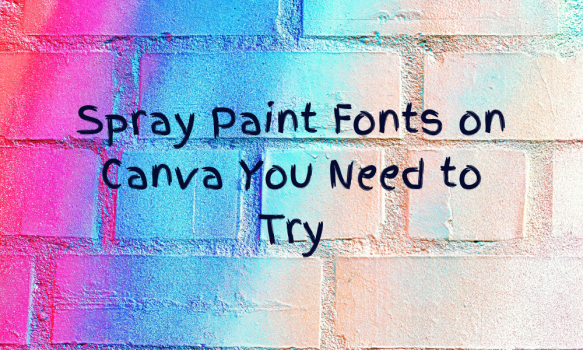
Spray Paint fonts are the perfect way to give your projects an edgy, urban look. Whether you’re creating a poster, a social media graphic, or just want to spice up your content, these fonts on Canva can help you make a bold statement. In this article, we’ve rounded up 15 of the coolest spray paint fonts available on Canva. From wild drips to sharp stencils, each font offers something unique for your designs. These fonts bring a unique flavor and versatility to your designs, making them worthy of exploration in Canva’s vast library.
1. Abys
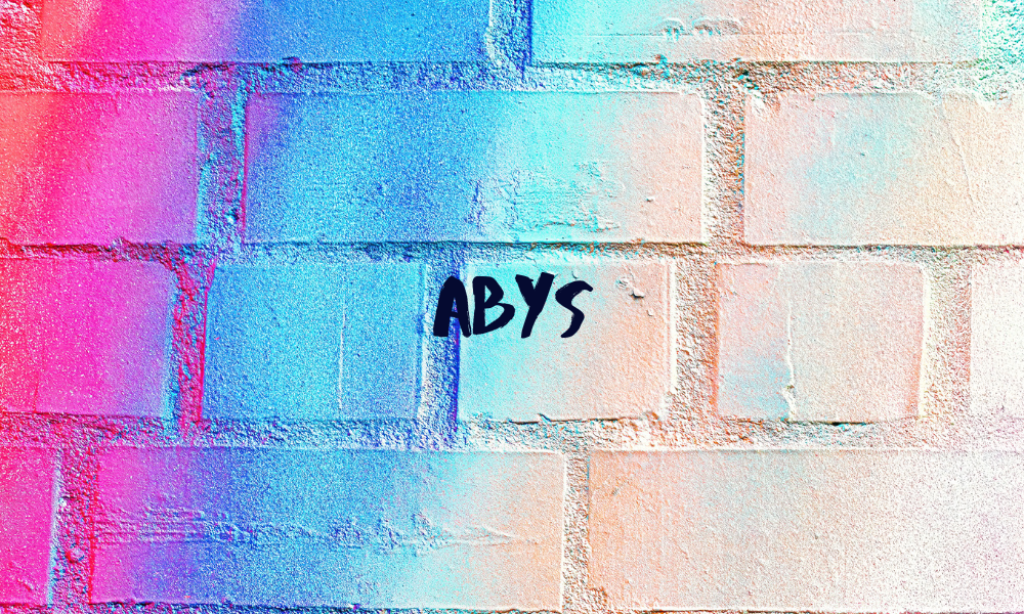
Why it is a must-try Spray Paint font: Abys is known for its raw, hand-painted appearance, which brings an authentic graffiti vibe to any design. Its rugged edges and varying line thickness make it perfect for impactful headlines and urban-style logos.
2. Balmy
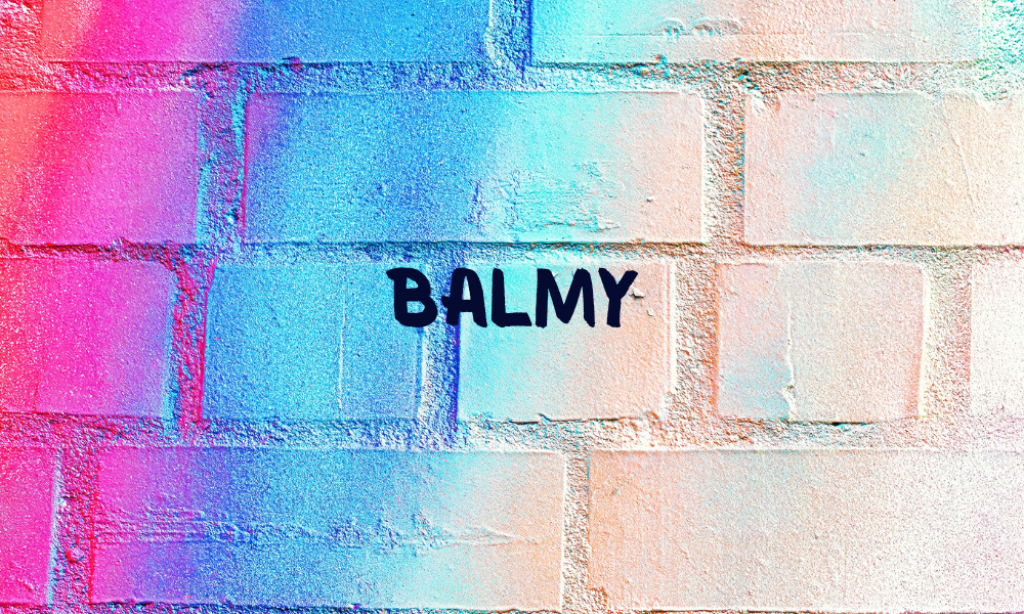
Why it is a must-try Spray Paint font: Balmy offers a soft, brush-like texture that mimics spray paint’s light mist effect. This font is ideal for designs that need a touch of graffiti but with a more subtle and artistic approach.
3. Bristol
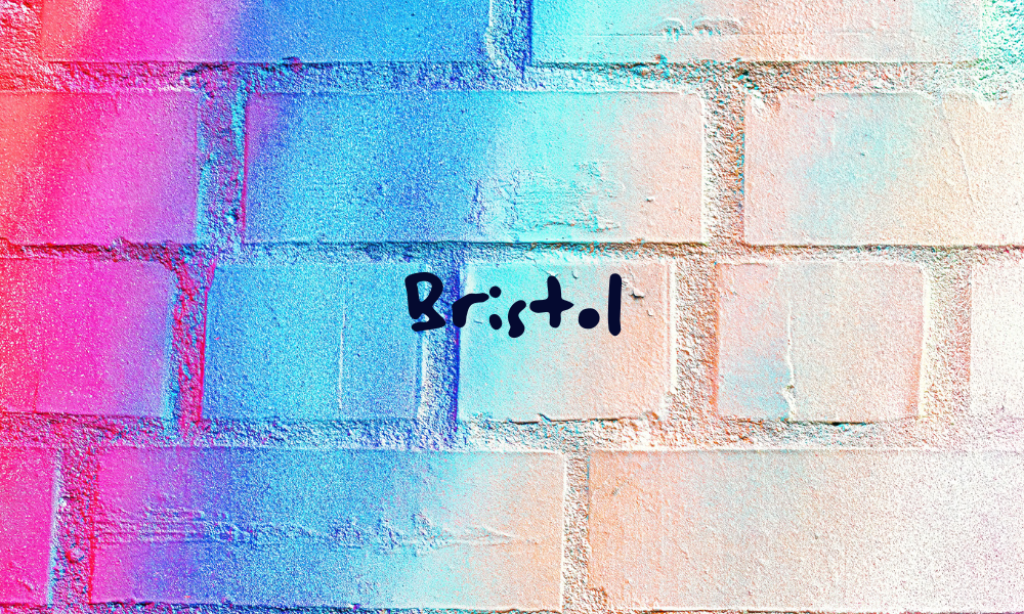
Why it is a must-try Spray Paint font: Bristol captures the look of classic stencil art, providing a structured yet street-inspired font style. Its clean lines and uniformity make it versatile for both text-heavy designs and minimalist artworks.
4. Finger Paint
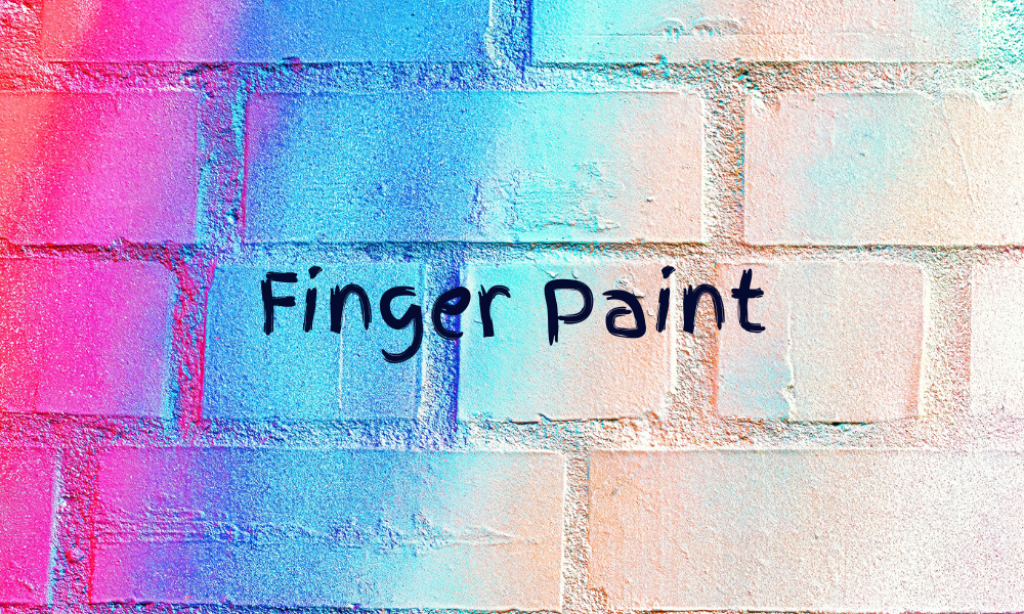
Why it is a must-try Spray Paint font: As the name suggests, Finger Paint has a playful, smeared look that mimics hand-painted letters. It’s perfect for projects that require a personal touch or a childlike whimsy, making it diverse in its usage.
5. Glacier Stencil
Why it is a must-try Spray Paint font: Glacier Stencil combines the precision of stencil art with the edginess of a spray paint finish. Its sharp, clear cuts are suitable for both outdoor adventure themes and modern, chic projects.
6. Hitch Hike
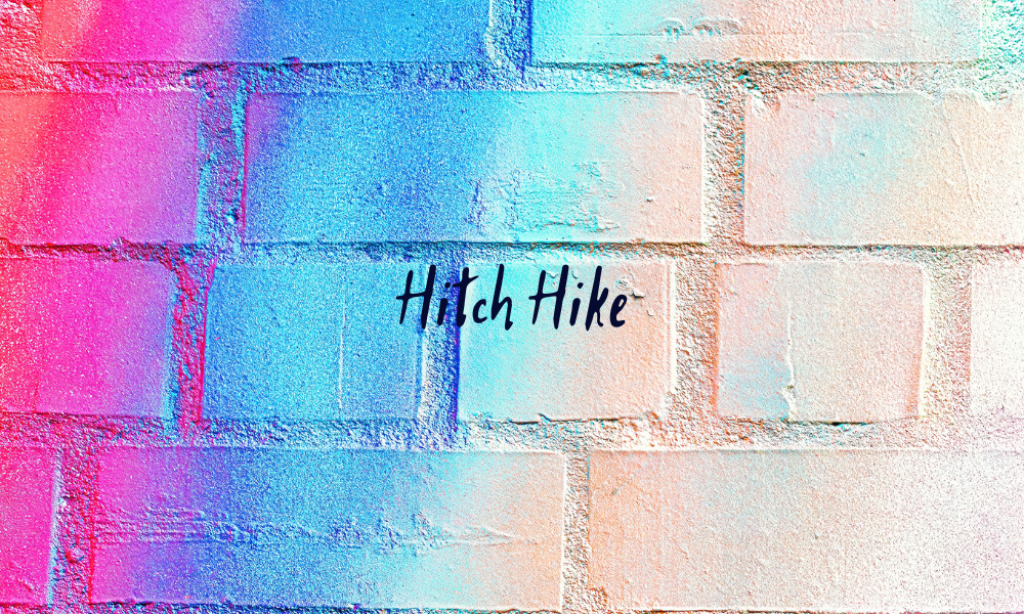
Why it is a must-try Spray Paint font: Hitch Hike is bold and assertive, with a slightly eroded look that adds a sense of adventure and spontaneity to your designs. It works well in travel blogs, adventure gear promotions, or any project that wants to convey a sense of ruggedness.
7. Lacquer
Why it is a must-try Spray Paint font: With its glossy finish and dripping effect, Lacquer truly embodies the spray paint aesthetic. It’s great for creating standout pieces that need to grab attention, such as concert posters or trendy apparel designs.
8. Lifelogo
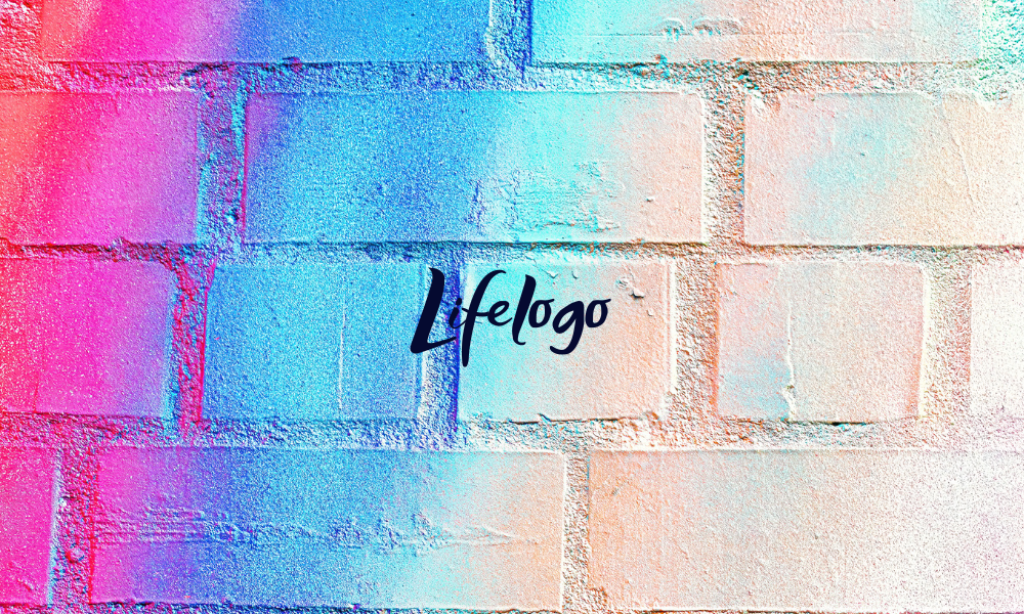
Why it is a must-try Spray Paint font: Lifelogo is sleek and modern, with a touch of graffiti flair. Its clean and readable style makes it excellent for contemporary business designs that need a touch of creativity without compromising professionalism.
9. Porcelain
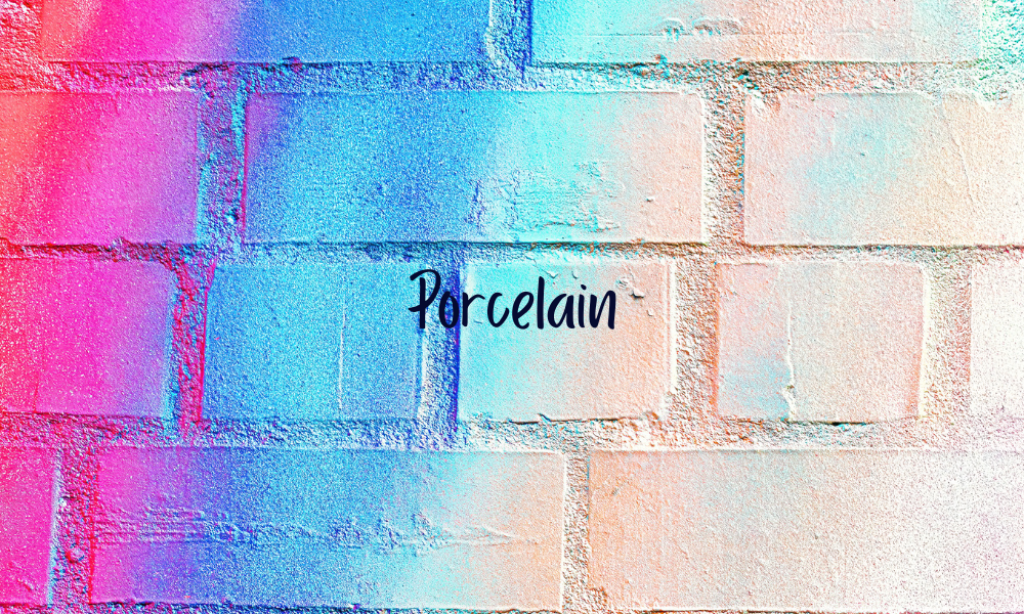
Why it is a must-try Spray Paint font: Porcelain offers an elegant yet decayed look, perfect for sophisticated designs that require a hint of urban decay. Its fine details and unique texture make it ideal for fashion labels or artistic exhibitions.
10. Quiapo
Why it is a must-try Spray Paint font: Quiapo is a font that brings a rough, handwritten style to the digital realm, ideal for impactful messages and creative visuals in music and art scenes.
11. Rubik Spray Paint
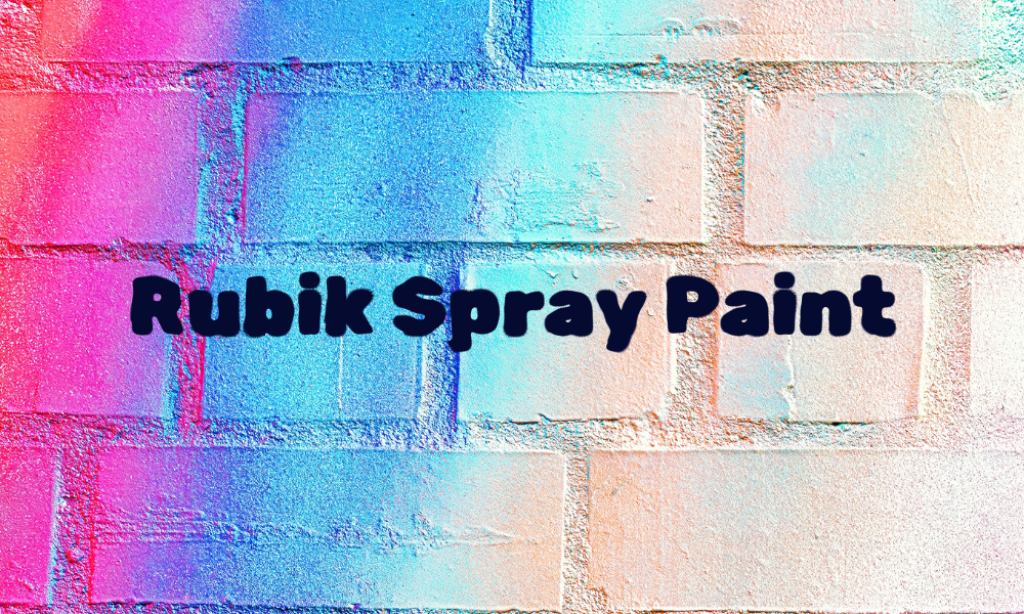
Why it is a must-try Spray Paint font: Rubik Spray Paint takes the well-known structure of the Rubik font and adds a layer of street art charm. This makes it perfect for projects that require readability but desire an unconventional twist.
12. Sarina
Why it is a must-try Spray Paint font: Sarina’s cursive, flowy style paired with a spray paint texture offers a unique combination of elegance and street art. It’s perfect for use in creative industries like beauty or fashion where a touch of flair is essential.
13. Sprite Graffiti
Why it is a must-try Spray Paint font: Sprite Graffiti is vibrant and dynamic, capturing the spontaneous feel of street art. Its bold and erratic style is particularly suited for urban entertainment or youth-focused events.
14. Stencil
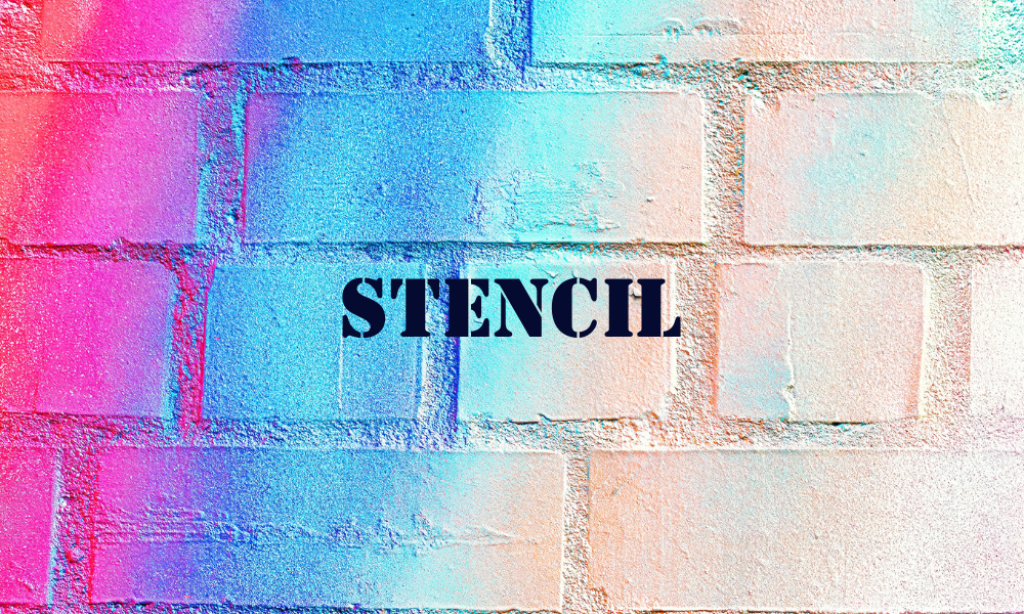
Why it is a must-try Spray Paint font: Stencil font provides the precision and impact of stencil art with the freedom and expressiveness of spray paint. It’s a classic choice for military-themed projects or any design that needs to communicate strength and directness.
15. TT Masters
Why it is a must-try Spray Paint font: TT Masters is a contemporary font that mixes typography with a graffiti feel, suitable for modern brands looking to blend professionalism with creativity. Its clean, angular lines make it excellent for tech startups or digital media outlets.